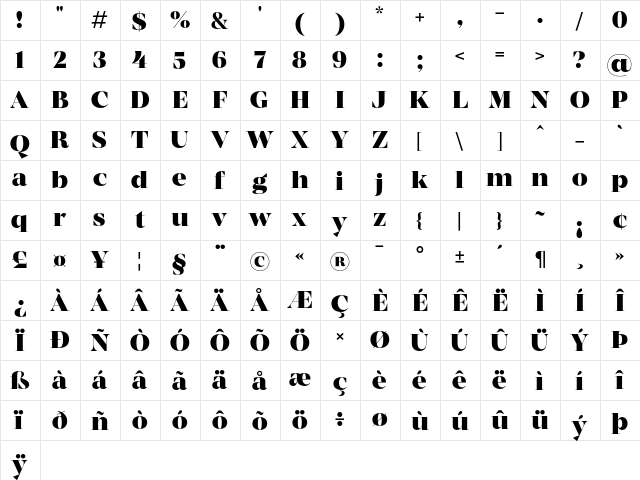
MADE Coachella Bold
Design Context for MADE Coachella Typeface
MADE Coachella offers clean, dependable letterforms without strong stylistic allegiance, making it a practical choice for designers who need flexibility. Its bold stroke weight gives it real presence on the page.